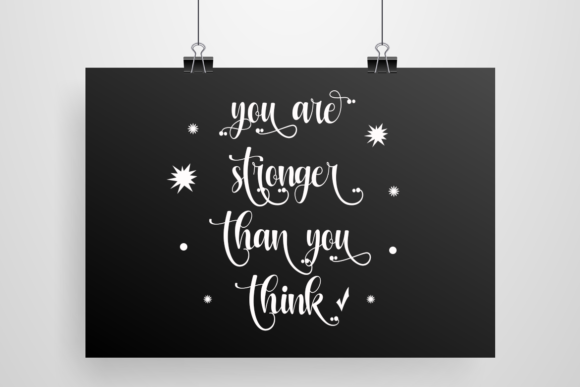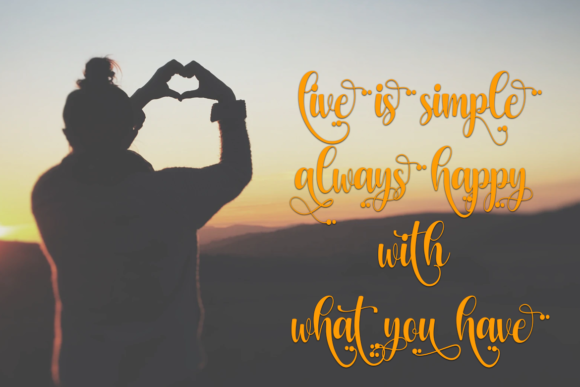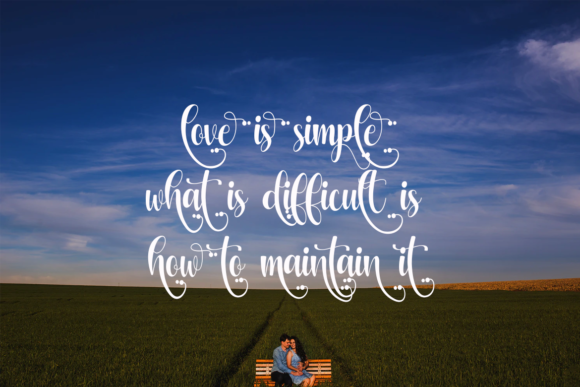
About Miracle Mother Font
Miracle Mother is a beautiful light handwritten font with a unique feel and a stunning impact. It will add a luxury spark to any design project that you wish to create! This font is PUA encoded which means you can access all of the amazing glyphs and ligatures with ease!